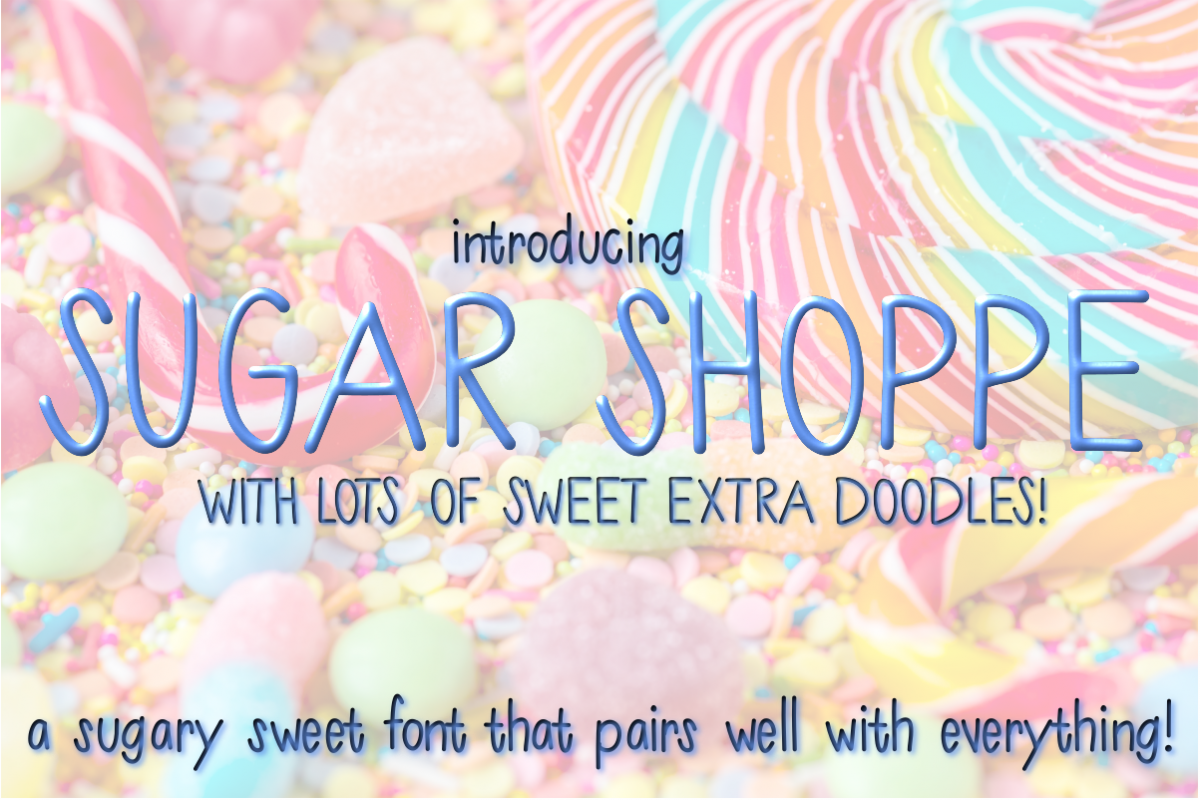
Sugar Shoppe Font for Crafters and Designers with EXTRAS!
Sugar Shoppe Font for Crafters and Designers with tons of SWEET EXTRA DOODLES!
This font is great for crafters to use for making t-shirts, decor, labels, and so much more.  Also a sweet little font for SVG designers! It pairs great with many different styles! You will love it!
Sugar Shoppe has a great size and weight to it, which will make it cut so smooth and nice in your craft cutting machine!
You and your projects will love the ease of use and versatility, and you will go to this font time and time again.